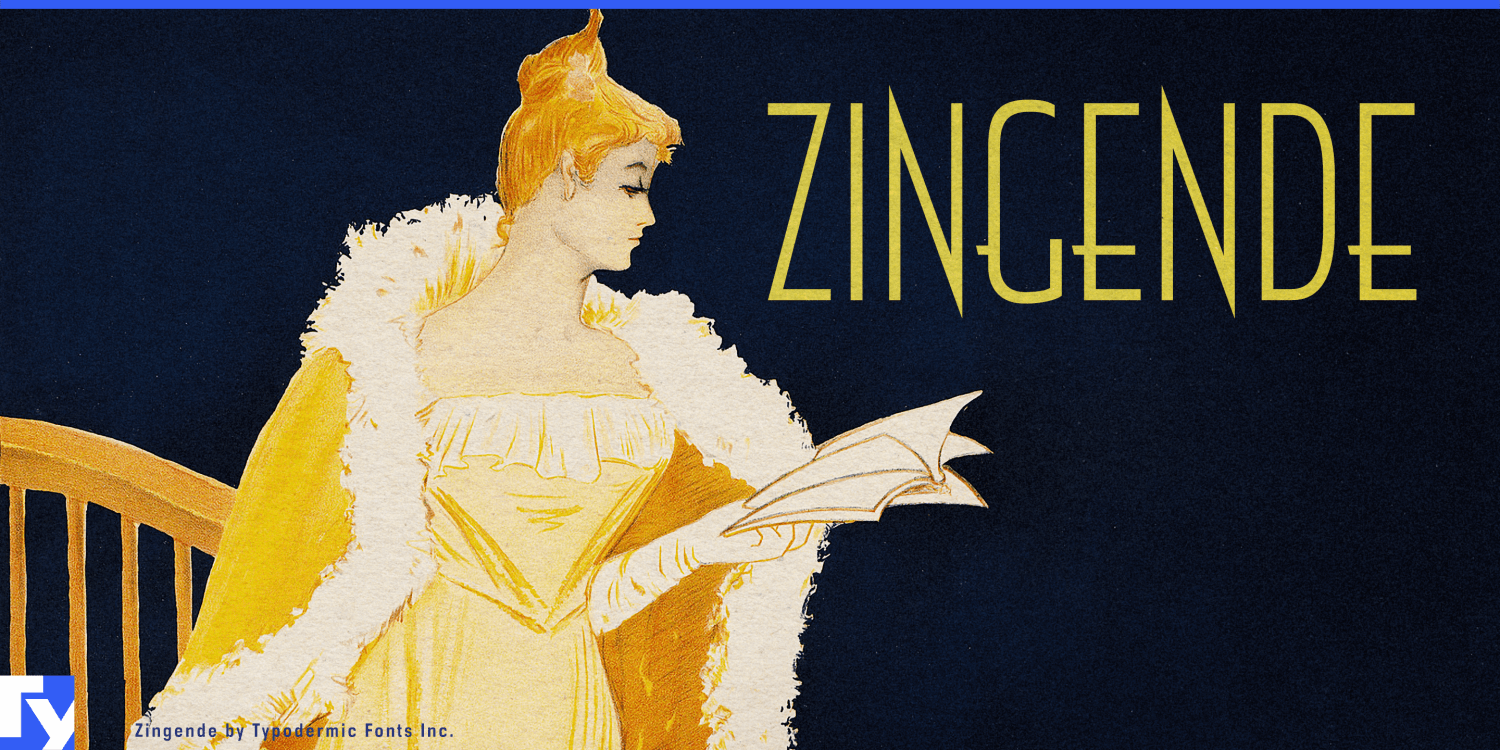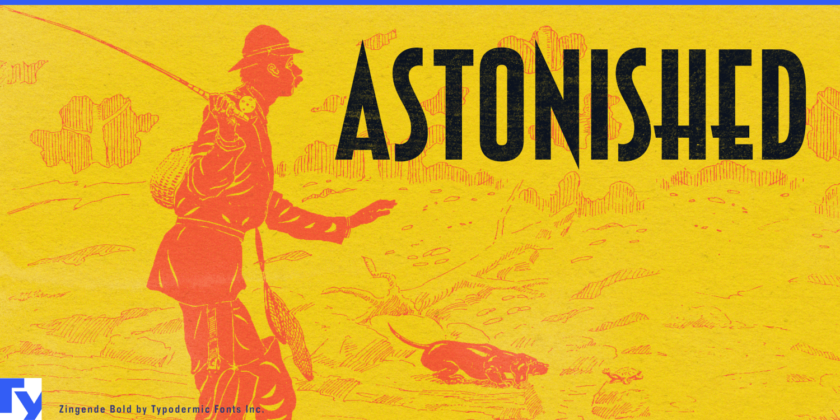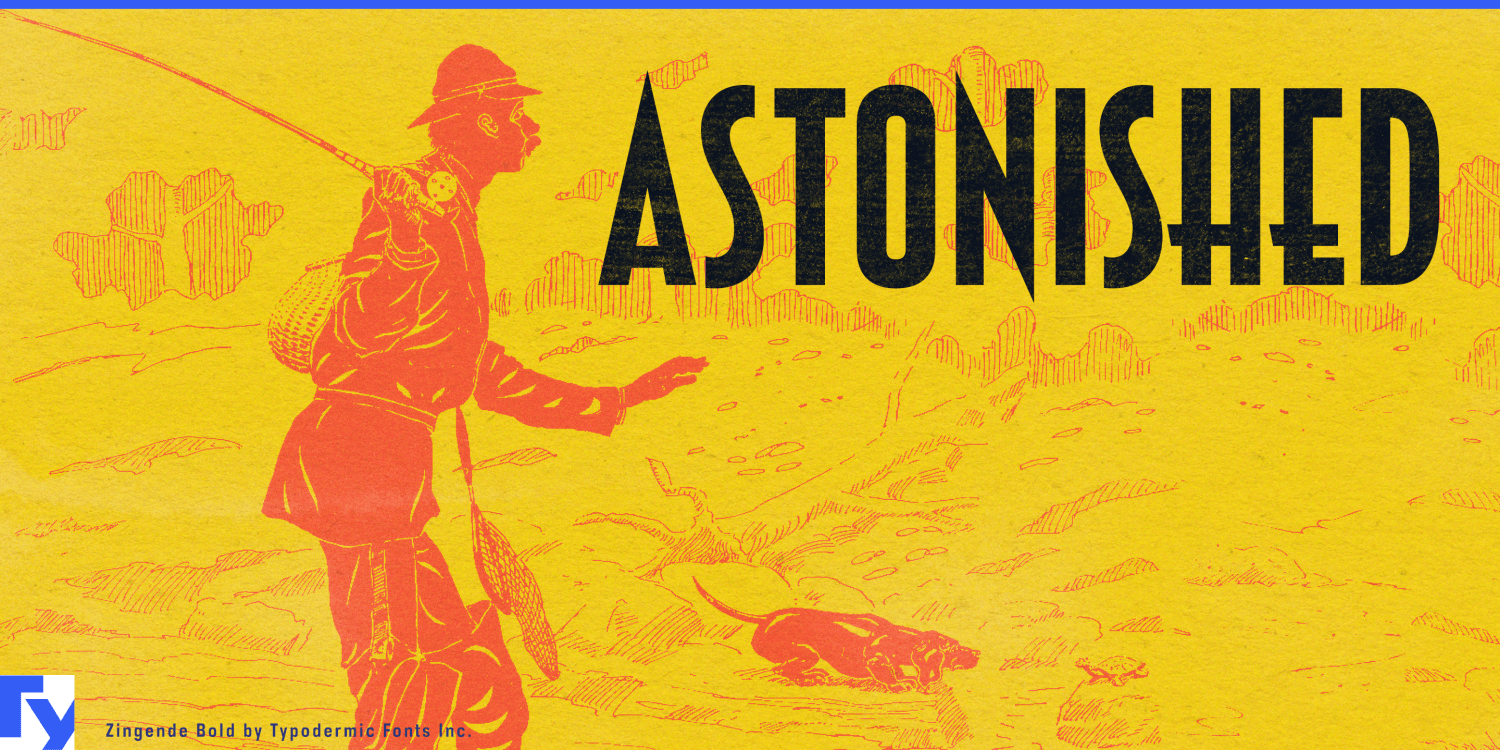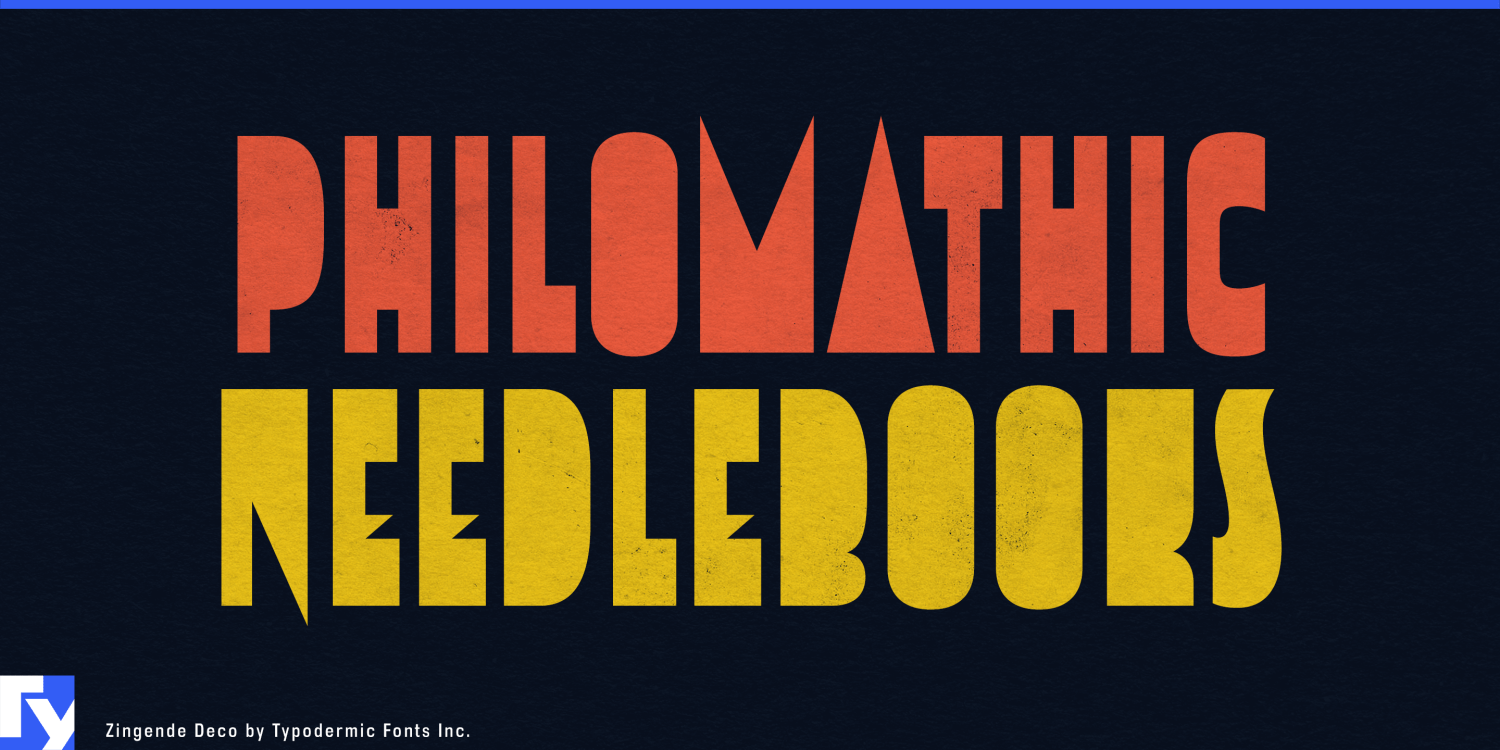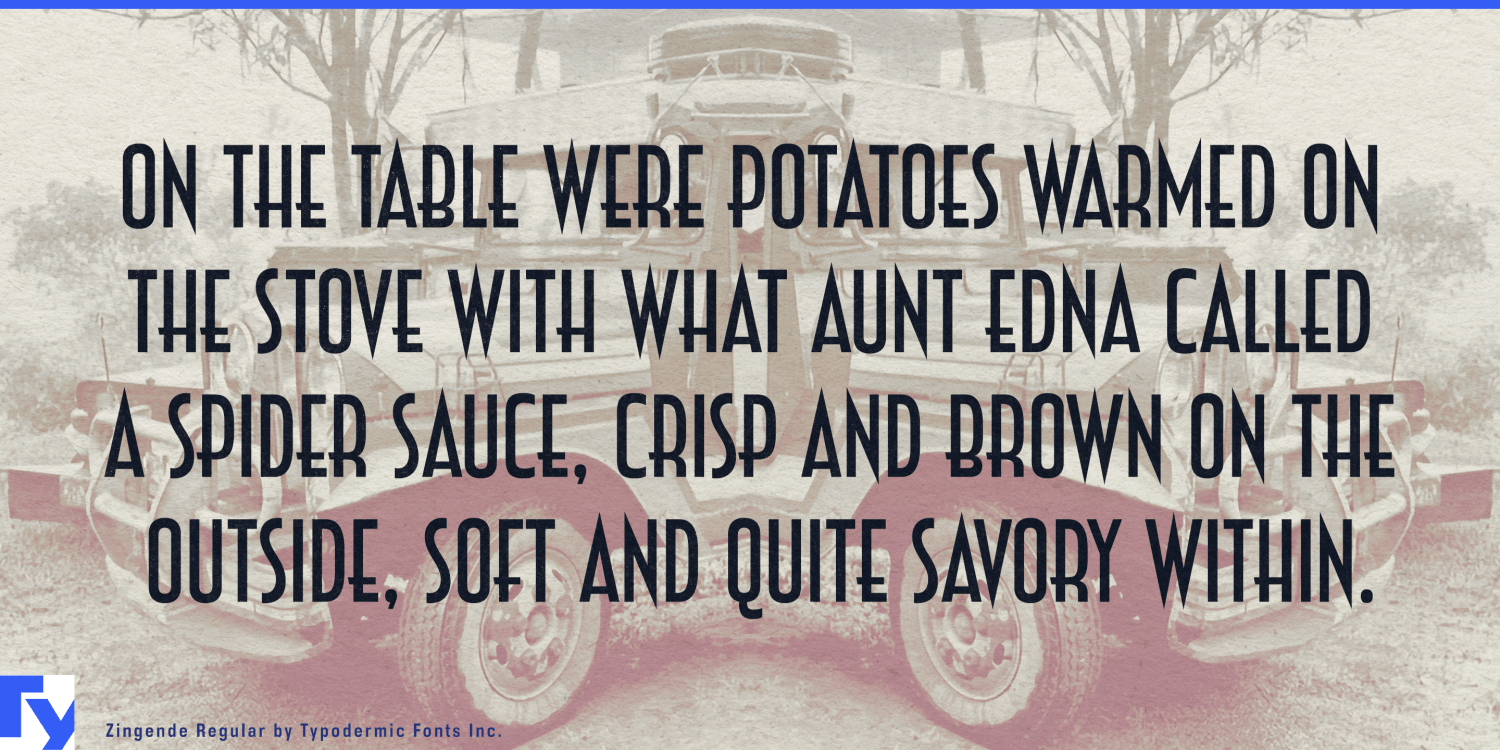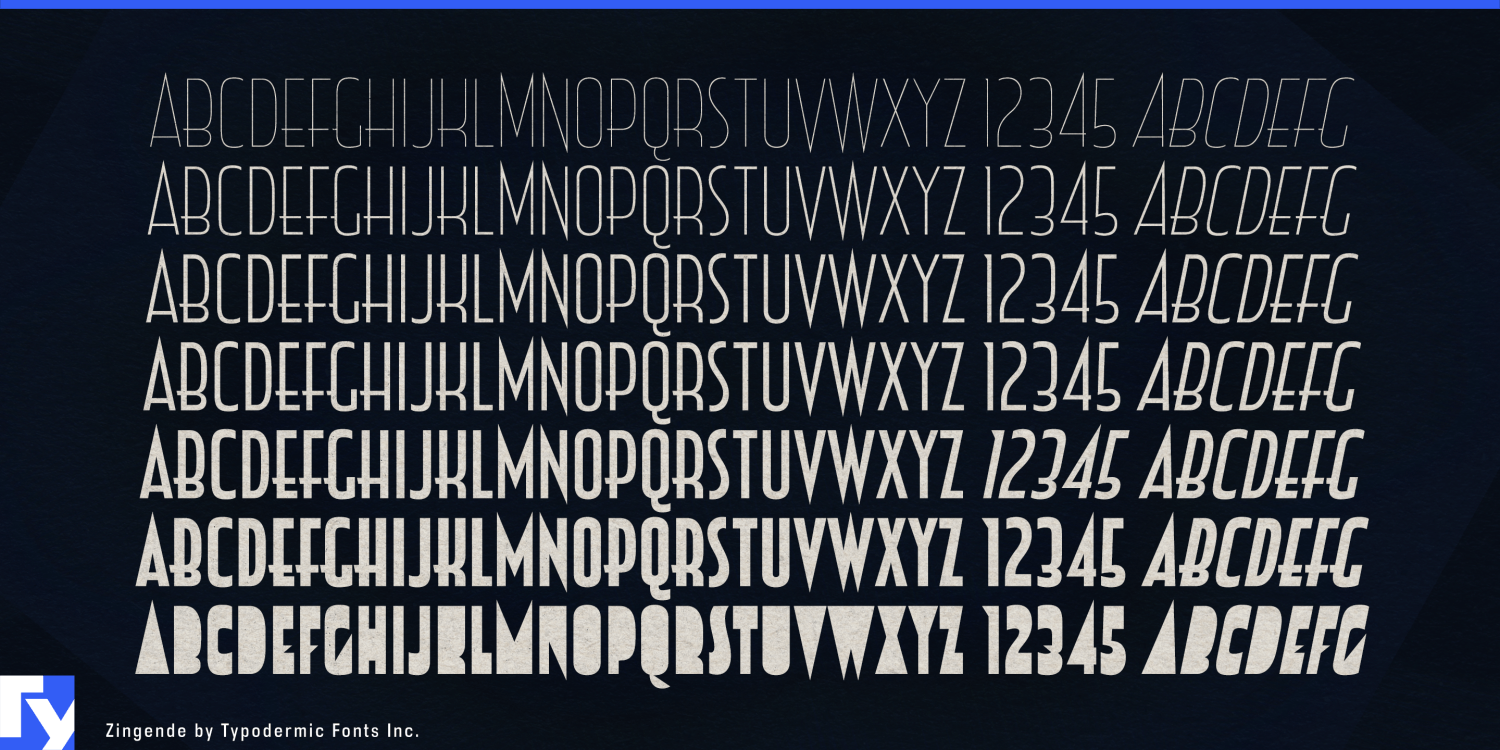
Zingende
About Zingende
Ladies and gents, put on your dancing shoes and prepare to cut a rug with Zingende, the typeface that’s hotter than a brass section in full blast! This is a typographic tribute to the era when the joint was always jumping and the music never stopped.…